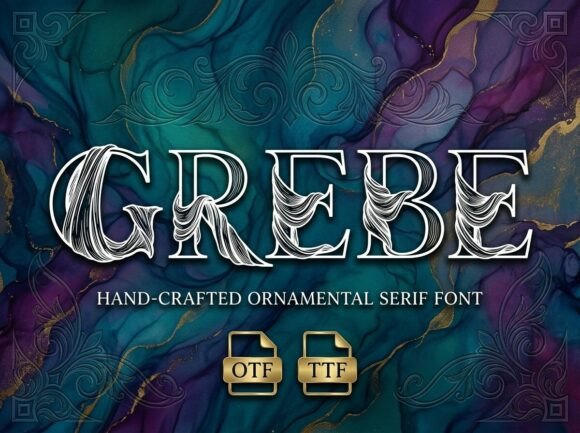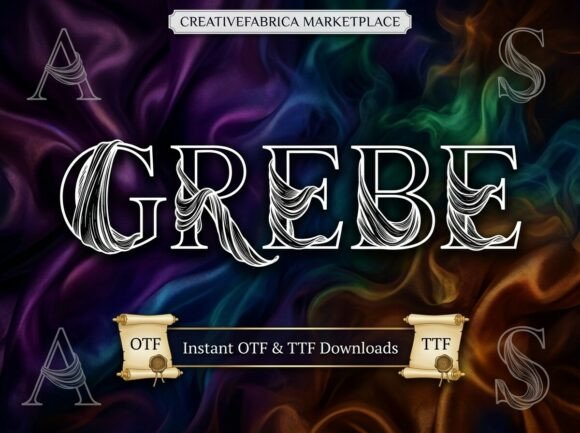
Introduction to Grebe Font
Wrap your designs in luxury with Grebe, a sophisticated display typeface that captures a “theatrical-and-regal” soul.
This font features bold, classical serif letterforms uniquely integrated with rhythmic, flowing drapery motifs that cascade across each character With its sturdy structural weight and high-end dramatic personality, Grebe is the premier choice for independent theater branding, luxury textile logos, upscale interior design signage, and high-impact “opulent-and-artistic” social media headers.
Grebe Font offers exceptional quality and versatility, making it a valuable addition to your design toolkit. Whether you’re creating for personal projects or commercial use, Grebe Font delivers professional results.